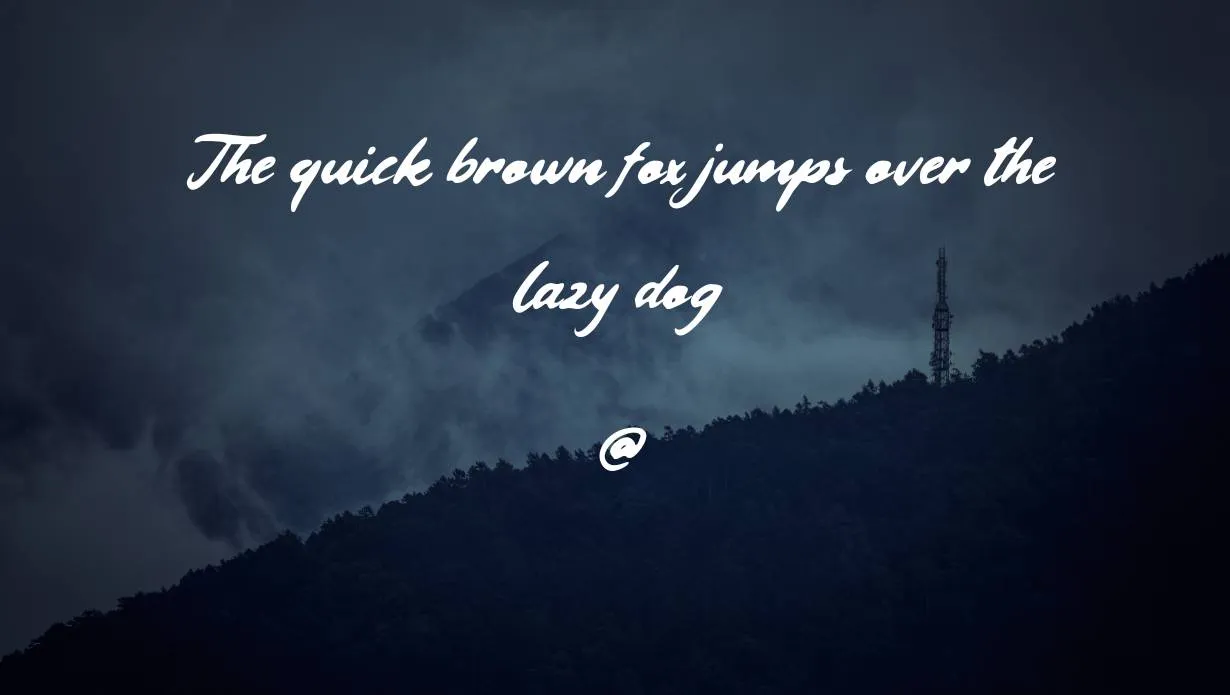
Vintage Quotes Font was designed by a well-reputed Indonesian typographer Muhammad Sirojuddin and it was publicized by Lettersiro Studio Foundry. The appearance of this stunning typeface is very similar to the Handwritten font family.
This typeface has a large character set which includes uppercase letters, numerals, and lowercase characters.
View of Vintage Quotes Font
| Name | Vintage Quotes Font |
| Designer | Muhammad Sirojuddin |
| Style | Handwritten |